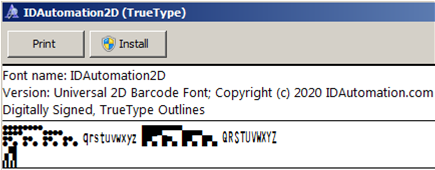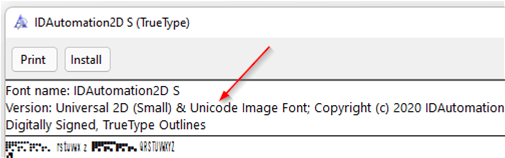
2D Universal Font Specifications
The IDAutomation2D font is provided in all Aztec, Data Matrix, DotCode, PDF417, and QR Code font packages. This single font generates the symbols for multiple symbologies. DotCode is supported in the latest version released in September 2020.
Several font versions and combinations are provided in the package:
- IDAutomation2D is the standard 2D font that should be used in most implementations. The PDF417 N dimension of this font is set to 3.
- IDAutomation2D S is a smaller version with a ratio and spacing of the glyphs designed to withstand multiple generations of degradation, such as scanning, reprinting, faxing, and when scanned from a phone or mobile device. This smaller version 2020 and later prints precisely to low resolution 203 and 300 dpi printers. This font also contains Unicode Image characters which can generate smaller symbols for native generation products that normally use a common system font. If this font is installed and Unicode Image is not working, make sure "Unicode Image Font" appears in the font description. If it does not, uninstall it and install the latest version.
- IDAutomation2D XLS is a TrueType only version for use in Excel. This is the only font that will work properly in Excel. The X dimension of this font is slightly larger than IDAutomation2D.
- IDAutomation2D N5 fonts in the "PDF417 N=5" folder have the N dimension of PDF417 set to 5.
X Dimension Chart by Font Point Size
When using a printer with less than 600 DPI, use the "IDAutomation2D S" font at the following point sizes to create accurate symbols:
| 203 DPI Printer (thermal printer) | 300 DPI Printer |
| 3, 6, 9, 12, 15, 18 | 2, 4, 6, 8, 10, 12, 14, 16, 18 |
* PDF417 Dimensions: When using PDF417 the X dimension of the IDAutomation2D font is 1/2 of what is listed in the X Dimension Chart, which is about 12 MILS when printed at 8 points. The X dimension of the IDAutomation2D N5 font is about 1/4 of what is listed in the X Dimension Chart, which is about .010" or 10 MILS when printed at 12 points.